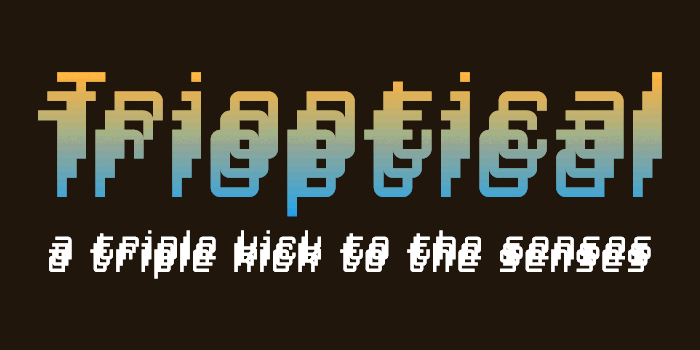
Trioptical Font
by Pixel Kitchen
A very typewriter-like font... or a very drunk one, depending on how you look at it! Supports Dutch, English, and German.